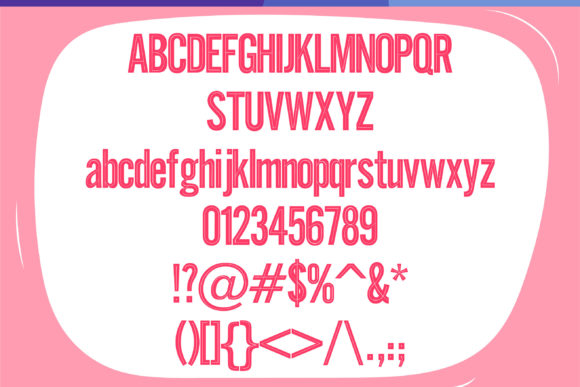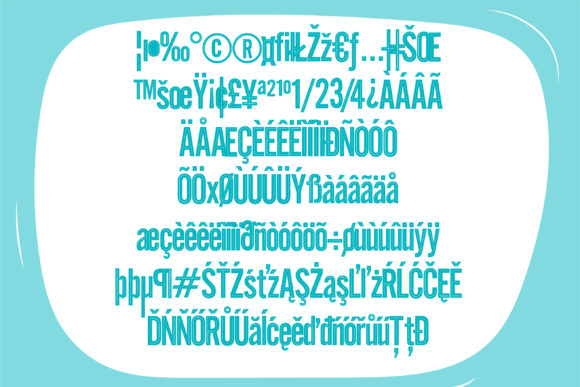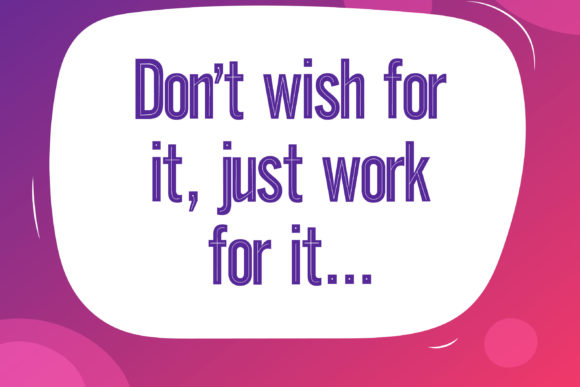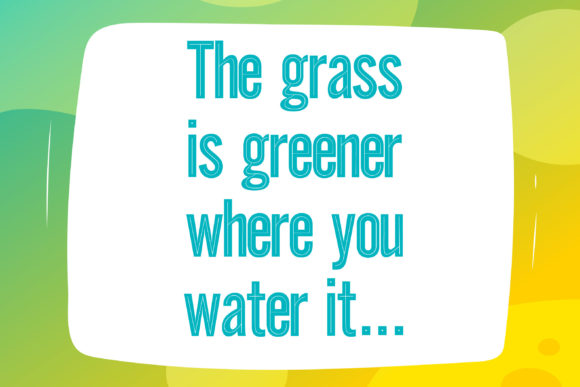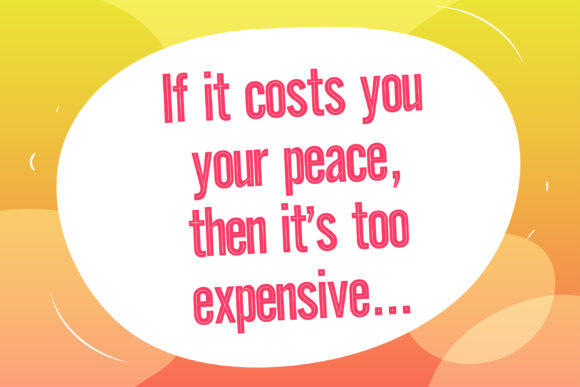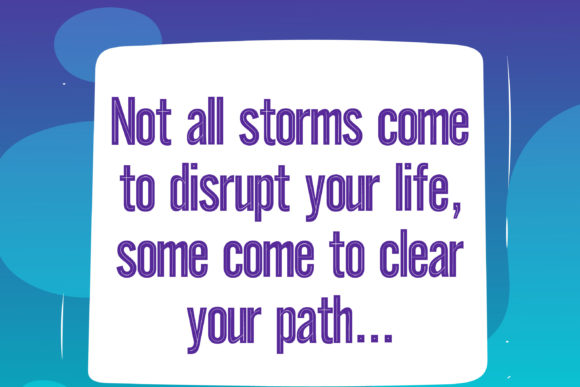
Discover the Power of McGrew Font
As designers, we’ve all been there – staring at a blank canvas, unsure of where to start. The cursor blinks, and our minds go blank. But what if I told you that there’s a font that can help spark creativity and take your project to the next level? Meet the McGrew Font, a clean and neat sans serif font that’s about to become your new design best friend.
Whether you’re working on a logo, a brochure, or a website, the McGrew Font has the potential to elevate any creation. Its simplicity and versatility make it an excellent design resource, perfect for a wide range of applications. And the best part? It’s available for a free download, so you can get started right away.
Key Features of McGrew Font
- Unique blend of modern and vintage elements, ideal for creative projects
- Features a transparent background, allowing for seamless integration with any design
- High-resolution design (scalable up to 2048×2048 pixels) for crisp and clear display on various devices
- Designed to be highly legible, with clear and distinct letterforms that are perfect for body text and headings
- Perfect for designers looking for a high-quality font to elevate their creative project
Honest Review: McGrew Font
I recently had the chance to work with the McGrew Font, and I must say it’s been a mixed bag for me. As a designer, I appreciate high-quality design resources, and McGrew Font definitely fits the bill.
- The McGrew Font has a unique and quirky feel to it, making it perfect for creative projects that require a touch of personality.
- The font is highly customizable, allowing for a wide range of color options and settings.
- The font is well-suited for use with transparent backgrounds, adding an extra layer of design flexibility.
- The font can be a bit overbearing at times, making it difficult to use in situations where a more subtle font is needed.
- The limited font sizes and styles may limit its use in certain design scenarios.
Overall, I’d say the McGrew Font is a solid addition to any designer’s toolkit. While it may not be the best fit for every project, it’s definitely worth considering for creative projects that require a bit of flair. With some careful planning and usage, the McGrew Font can be a valuable design resource.
How to Use McGrew Font
The McGrew Font is a versatile and modern design resource ideal for creative projects. This high-quality font is available for free download and can be used with a transparent background, making it a great addition to any design.
Using McGrew Font in PowerPoint/Word
To use the McGrew Font in PowerPoint or Word, simply install the font file on your computer. You can then select the font from the font library and apply it to your text. The McGrew Font works well for presentations and documents, and its transparent background makes it easy to use with images and backgrounds.
Tips for Getting the Most Out of McGrew Font
To get the most out of the McGrew Font, try using it in combination with other design elements, such as images and graphics. You can also experiment with different font sizes and colors to create a unique look. Additionally, consider using the McGrew Font in conjunction with a transparent background to create a clean and modern design.
The McGrew Font is ideal for a variety of creative projects, including branding, logos, presentations, and documents. Its high-quality design and transparent background make it a great addition to any design, and its free download makes it accessible to designers of all levels.